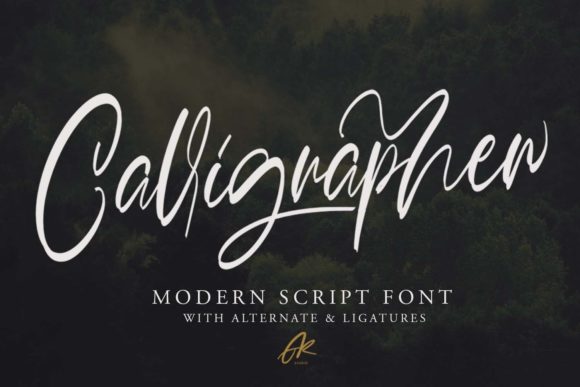
The Magic of Calligrapher Font: Elevate Your Designs with Elegance
I’ll never forget the time I was working on a wedding invitation project, and my client asked for a font that exuded elegance and sophistication. I scoured the internet, tried countless fonts, but nothing seemed quite right. That was until I stumbled upon Calligrapher Font. It was like magic! ✨ The flowing lines, the classic style, and yet, a friendly feel that made it perfect for the job. In this article, I’ll share with you why Calligrapher Font has become a staple in my design toolkit and how you can make the most of it.
An Honest Review of Calligrapher Font
- ✨ Elegant and classic style that’s perfect for formal designs
- ✅ Friendly feel that makes it approachable and accessible
- 💫 Highly versatile and can be used for a wide range of projects, from wedding invitations to branding and packaging
- 🎨 Beautifully crafted with attention to detail, making it a joy to work with
While Calligrapher Font is an amazing font, there are a few things to keep in mind:
- ⚠️ Some of the more intricate glyphs can be a bit finicky when it comes to smaller font sizes
- 🤔 It may not be the best choice for very long blocks of text, as it can be a bit too ornate
A Practical Guide to Using Calligrapher Font
- Experiment with the font’s OpenType features, such as stylistic alternates and glyphs, to add some extra flair to your design
- Use the Glyphs panel to access the font’s extensive character set and OpenType features
The Backstory of Calligrapher Font
Calligrapher Font was created by a team of designers who wanted to bring a touch of elegance and sophistication to the digital world. Inspired by traditional calligraphy, they carefully crafted each letterform to ensure that it was both beautiful and legible. The result is a font that feels both classic and modern, making it perfect for a wide range of design projects.
Q: What is Calligrapher Font?
A: Calligrapher Font is a magical handwritten font carefully created with a touch of elegance. It features an incredibly classic style, while still keeping a friendly feel.
Q: What can I use Calligrapher Font for?
A: Calligrapher Font is perfect for making original and outstanding designs, such as wedding invitations, branding and packaging, and more.